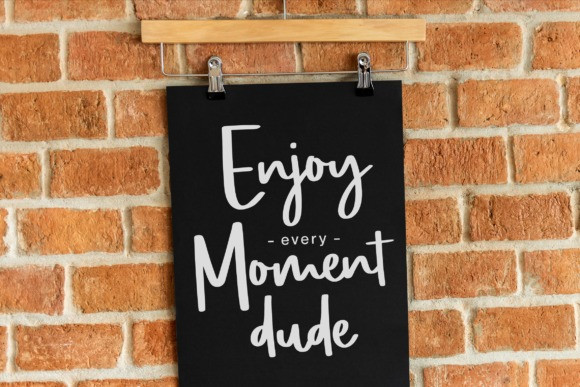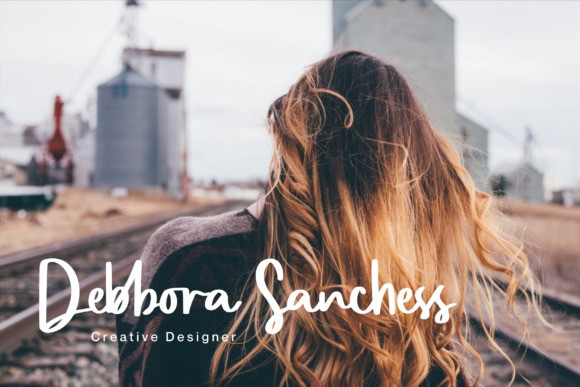
Pondspell Handbrush Font
Introducing Pondspell Brush Font Pondspellt is a brush font, Made with naturally brush. The texture from the brush font will make your design more beautiful and powerful. This font is suitable for any design like branding, quotes, book title and etc.